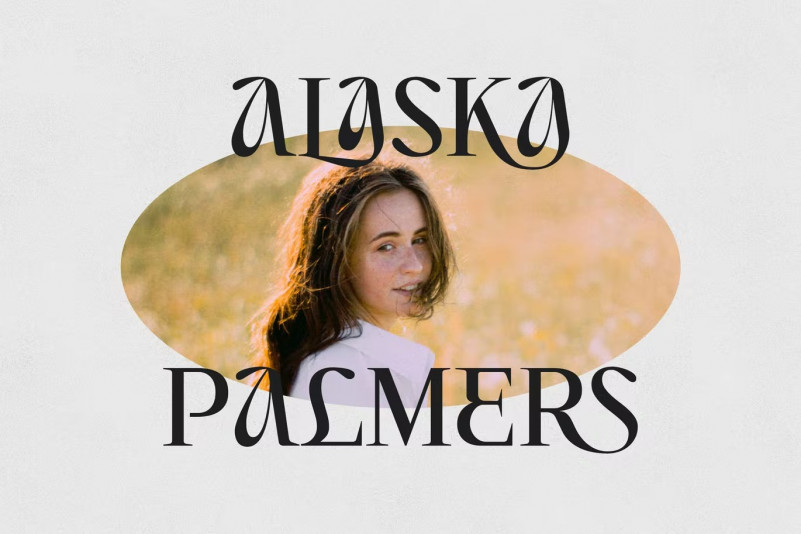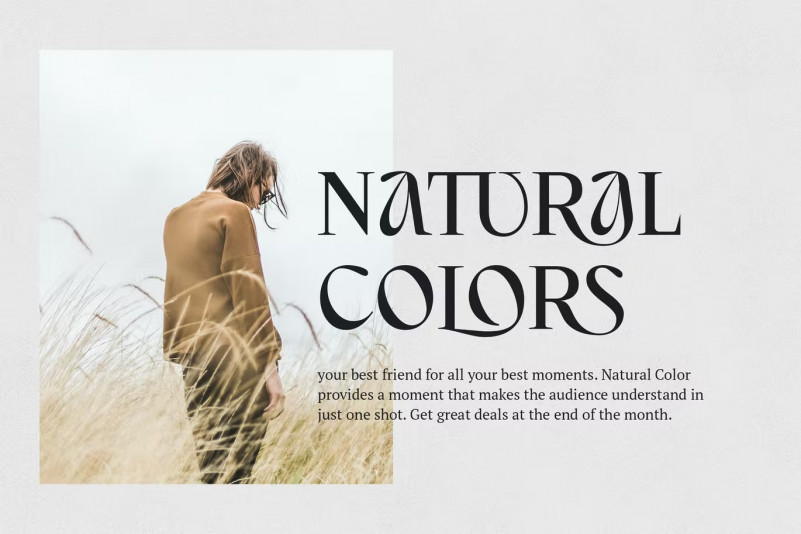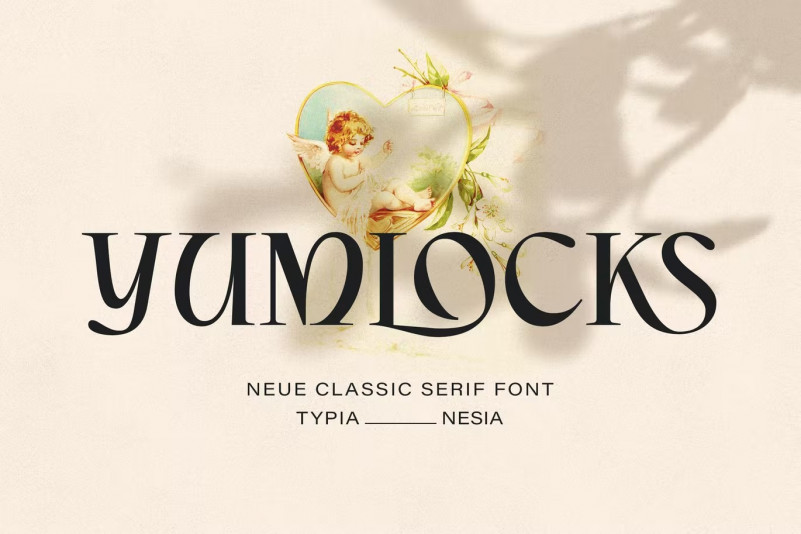
Yumlocks Font
Yumlocks – Ligature Display Bold Serif – Fantasy Beauty Vintage Font – Logo Branding Font
Yumlock comes with alternates and ligatures, so you can combine it to make a perfect typography design. Suitable for any design needs: logo, branding, modern advertising design, vintage and retro design, holiday and traveling design, fashion and music, animation or movie title, poster quote, book / fantasy novel cover title, editorial design, website / blog, card, and more.